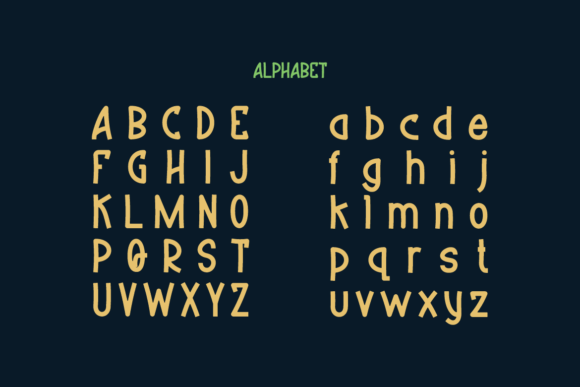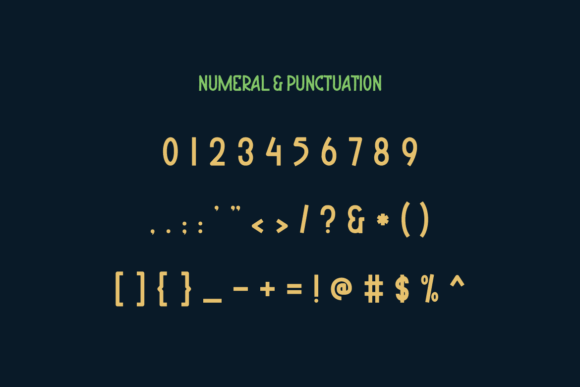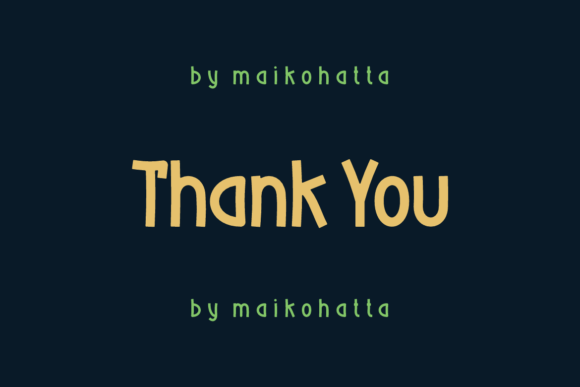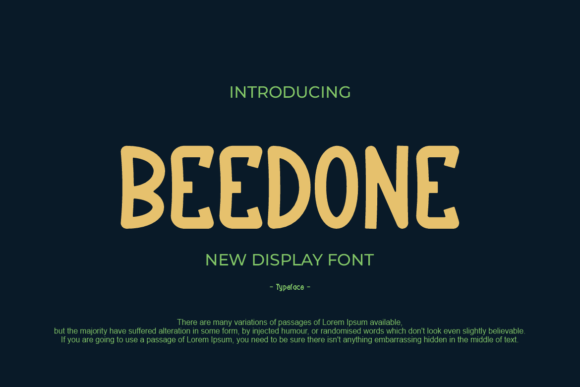
Introducing Beedone Font: The Sweet and Playful Display Font for Creative Projects
Are you looking for a font that can add a touch of sweetness and playfulness to your creative projects? Look no further than Beedone Font! This charming display font is perfect for designers and crafters who want to add a personal and whimsical touch to their work. In this article, we’ll take a closer look at Beedone Font, its features, and how you can use it to elevate your creative projects.
What is Beedone Font?
Beedone Font is a sweet and playful display font that is designed to add a touch of fun and personality to your creative projects. With its unique and charming lettering style, Beedone Font is perfect for a variety of design applications, including logos, branding, packaging, and more. Whether you’re working on a DIY craft project or a professional design project, Beedone Font is sure to make a statement.
Features of Beedone Font
So, what makes Beedone Font so special? Here are just a few of its key features:
- Sweet and Playful Design: Beedone Font has a unique and charming lettering style that is sure to add a touch of sweetness and playfulness to your creative projects.
- Display Font: Beedone Font is a display font, which means it’s perfect for headlines, titles, and other large text applications.
- Easy to Read: Despite its playful design, Beedone Font is easy to read, making it perfect for a variety of design applications.
- Versatile: Beedone Font can be used for a variety of design applications, including logos, branding, packaging, and more.
Why Choose Beedone Font?
So, why should you choose Beedone Font for your creative projects? Here are just a few reasons:
- Unique Design: Beedone Font has a unique and charming design that is sure to make your creative projects stand out.